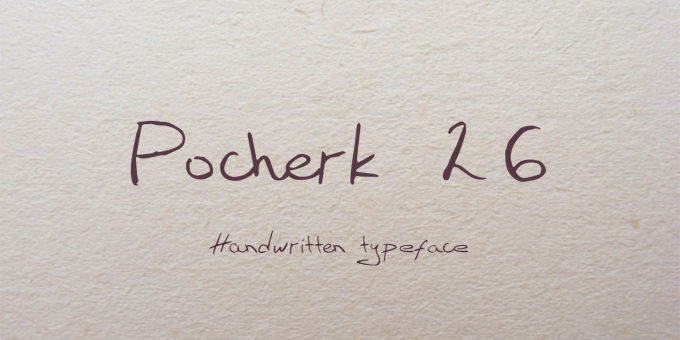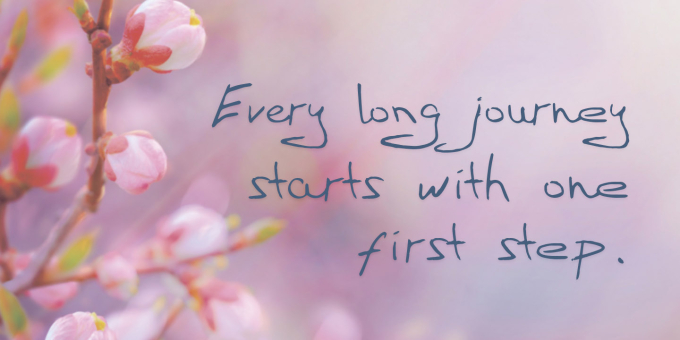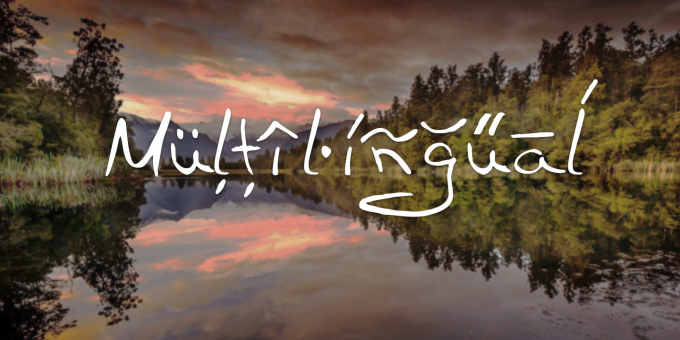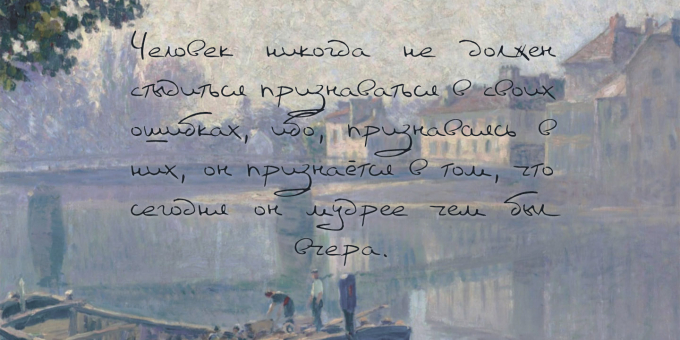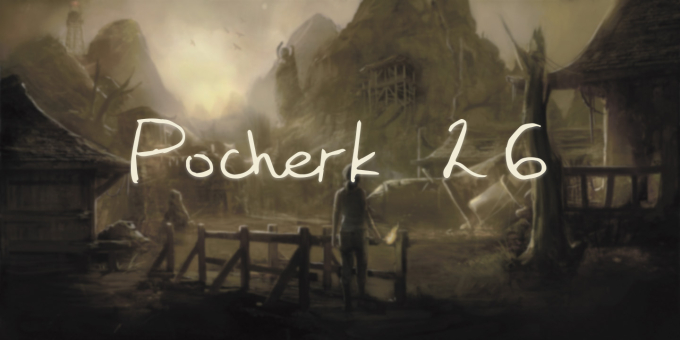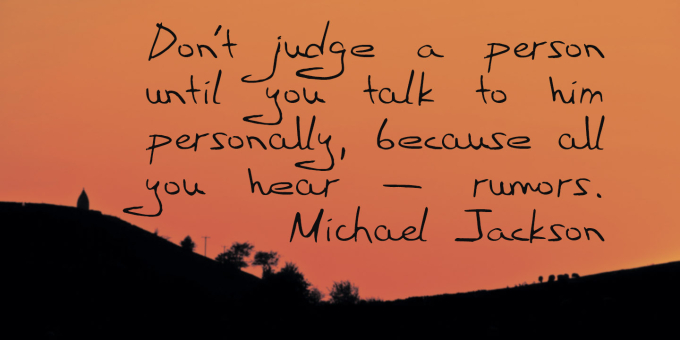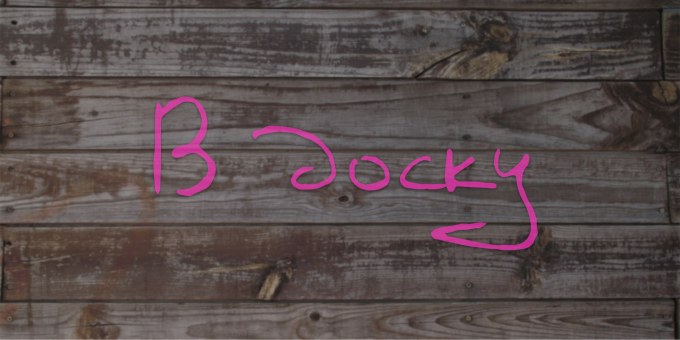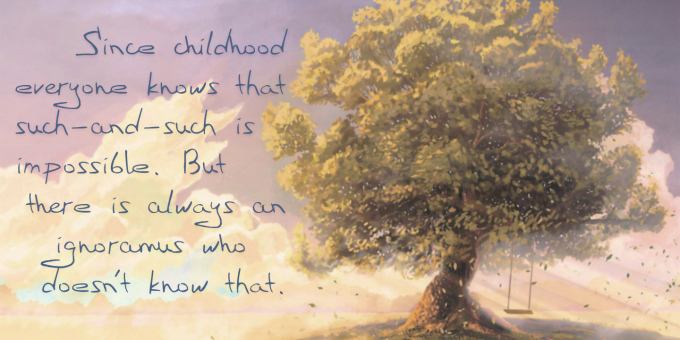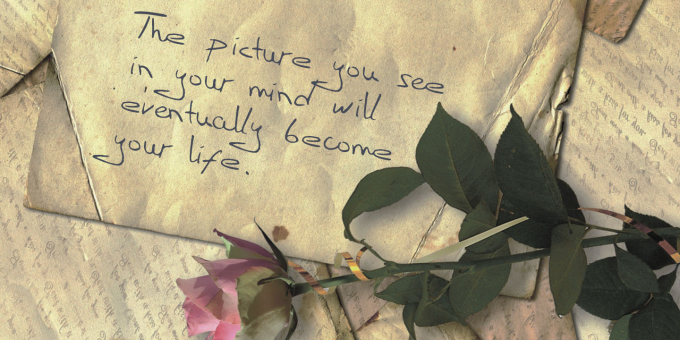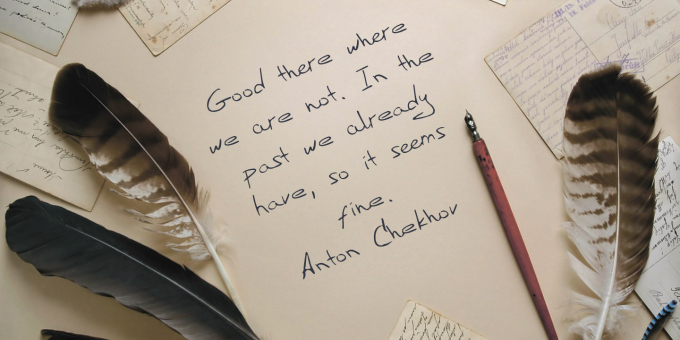
Pocherk 26
Pocherk 26 is handmade handwritten font. It is sprawling, lively and a little crazy. It is multilingual. Pocherk 26 includes all European languages, characters for many currencies and with a wide range OT features such as contextual alternates and ligatures to make the font more natural.
OT features: contextual alternates, contextual ligatures, stylistic alternates, fractions, tubular numerators, slashed zero, localized forms..
Multilingual support: English, Russian, Turkish, Baltic, Scandinavian, German, Italian, Spanish, French, Dutch, Irish, Polish, Czech, Serbian, Bolgarian, Ukrainian, Macedonian, Croatian, Slovakian, Slovenian, Romanian, Icelandic...
Number of glyphs: 560
Euro & others currency (7)